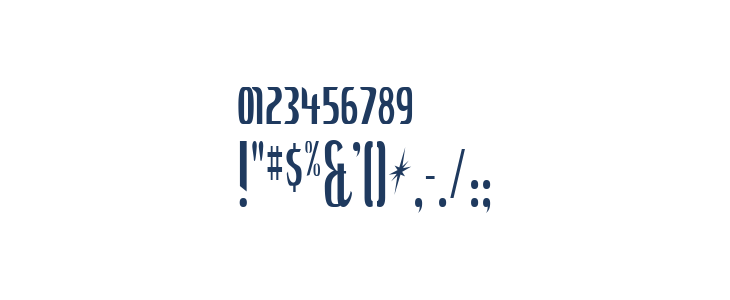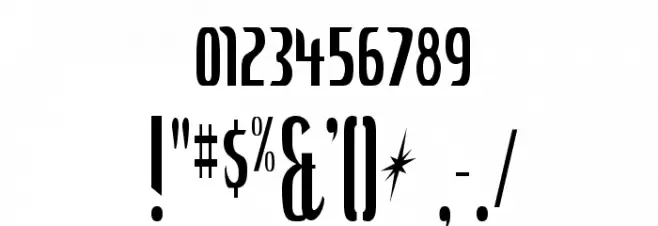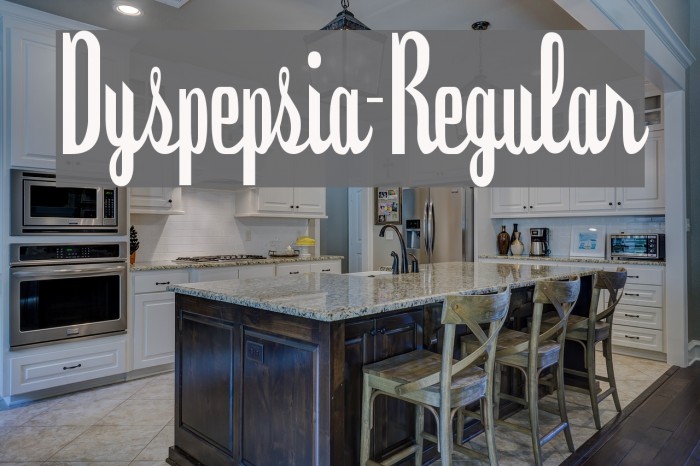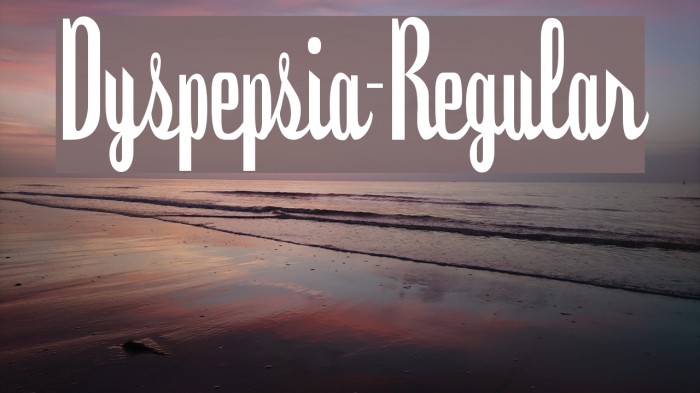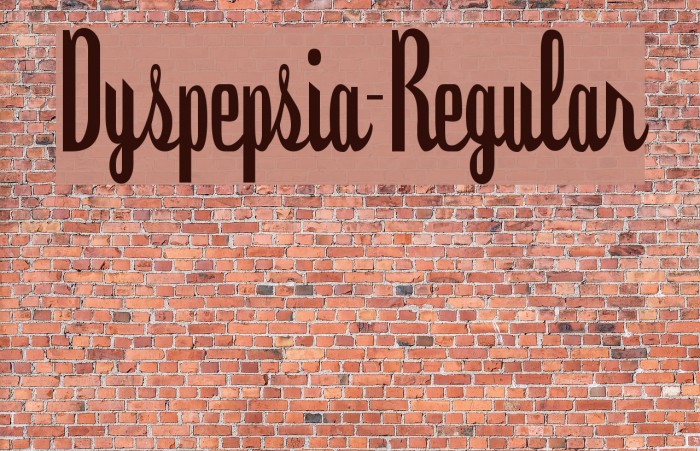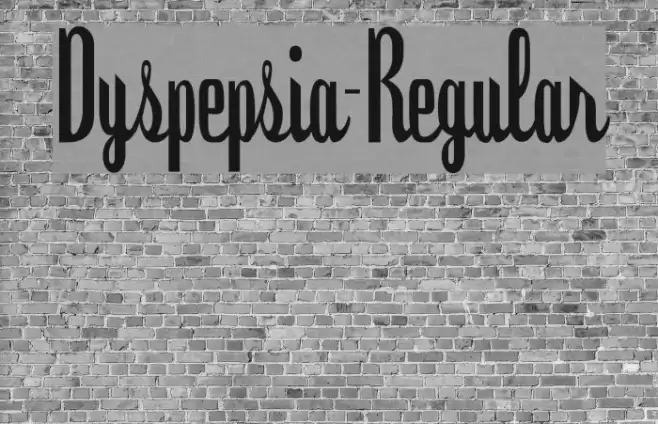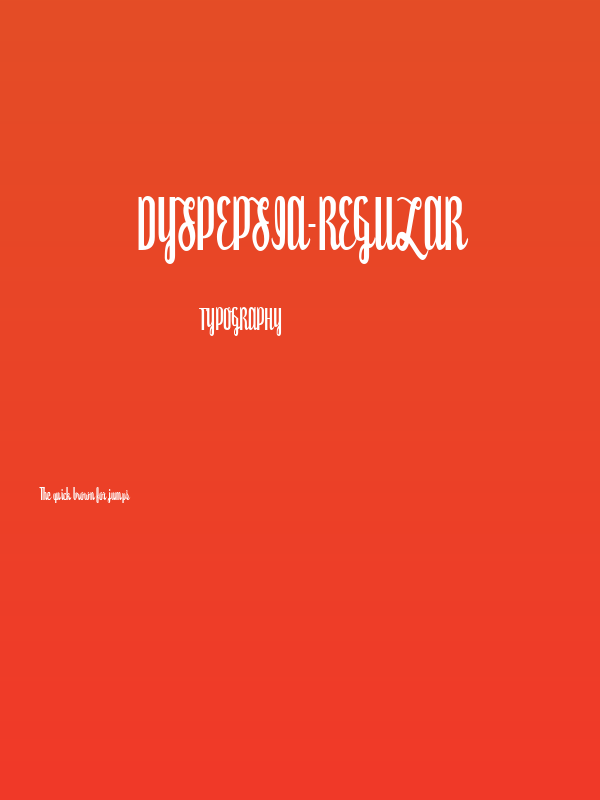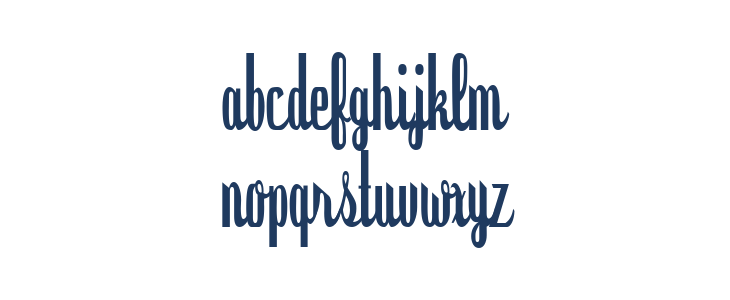
Dyspepsia-Regular Font
Dyspepsia-Regular Description
This font features a distinctive and elegant script style with a modern twist. The uppercase letters are tall and narrow, with unique flourishes that add a touch of sophistication. The lowercase letters maintain a consistent flow, enhancing readability while retaining an artistic flair. Numbers and special characters are designed to complement the overall aesthetic, making this font versatile for various design needs. The strokes are consistent in weight, providing a balanced and cohesive look across all characters.
Fonts by www.typodermicfonts.com - Ray Larabie
| Proposed Projects | Ideal for wedding invitations, branding projects, and elegant signage. |